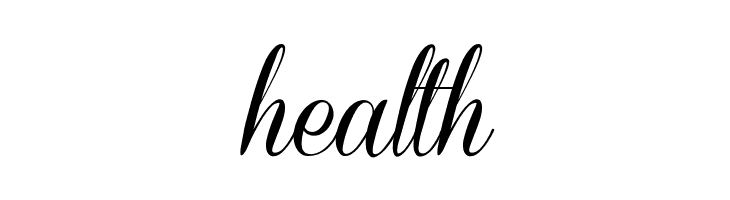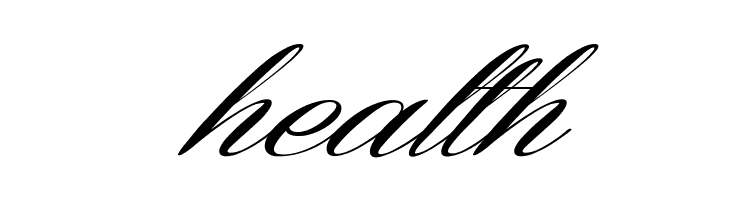
Coneria Script Demo Font
An elegant script font with flowing, interconnected letters and a sophisticated style.
Coneria Script Slanted Demo Font
A slanted, elegant script font with flowing, connected characters.